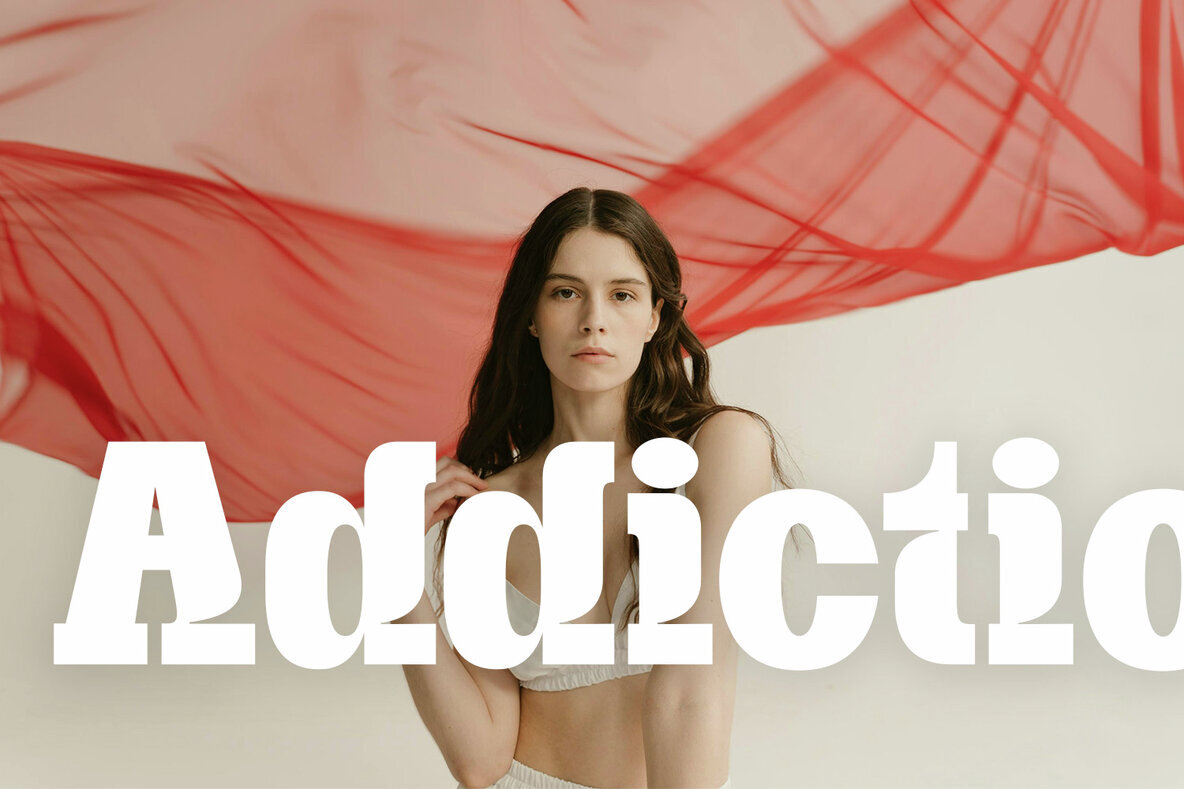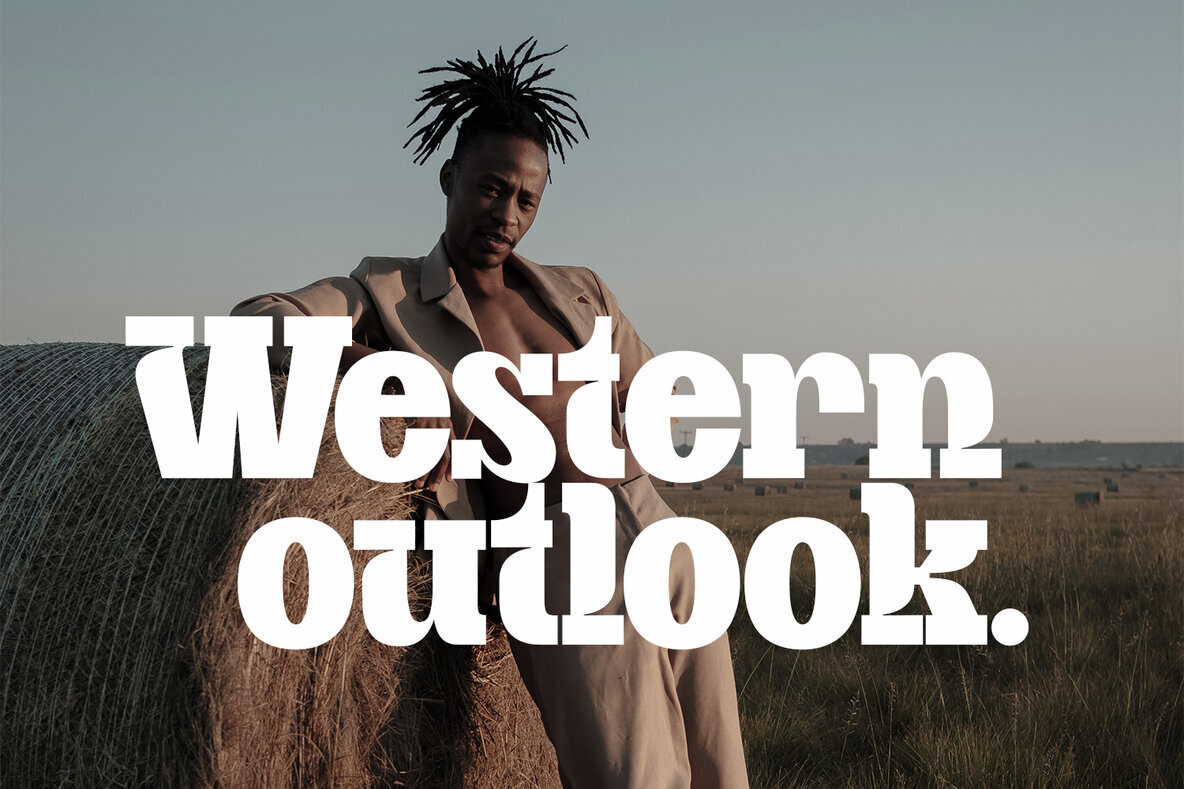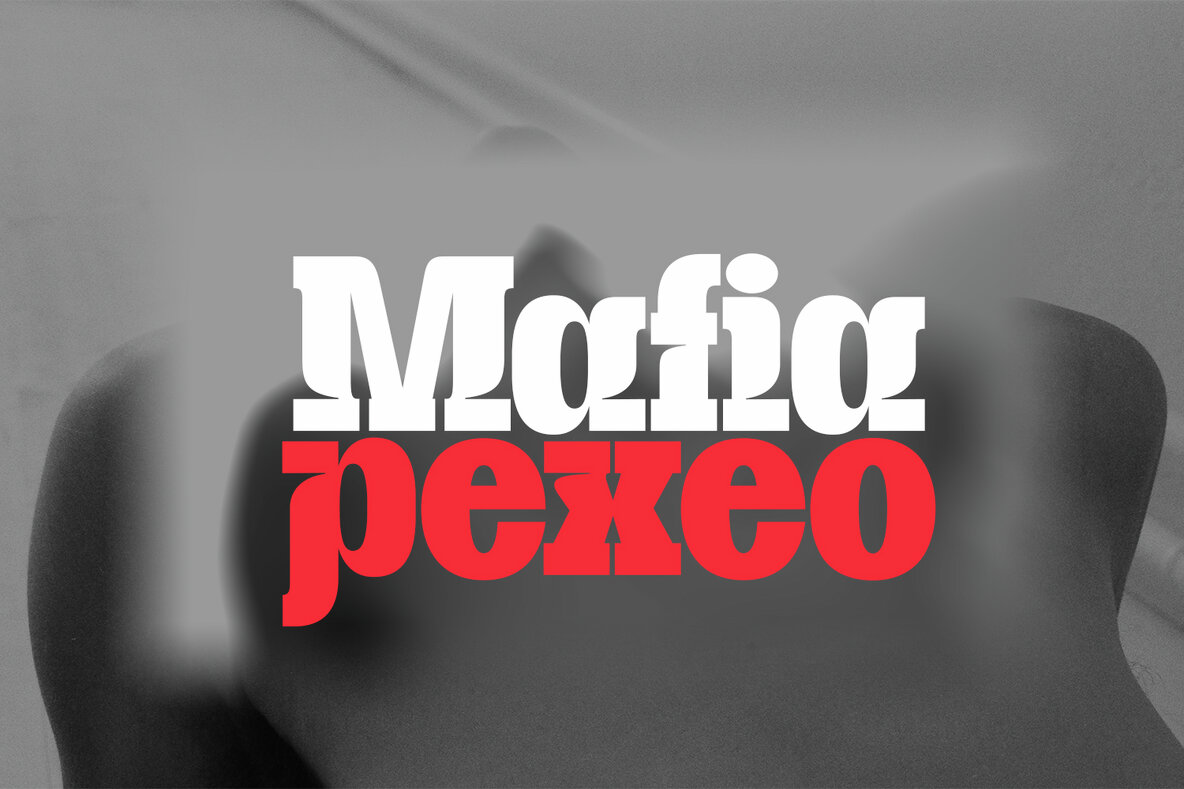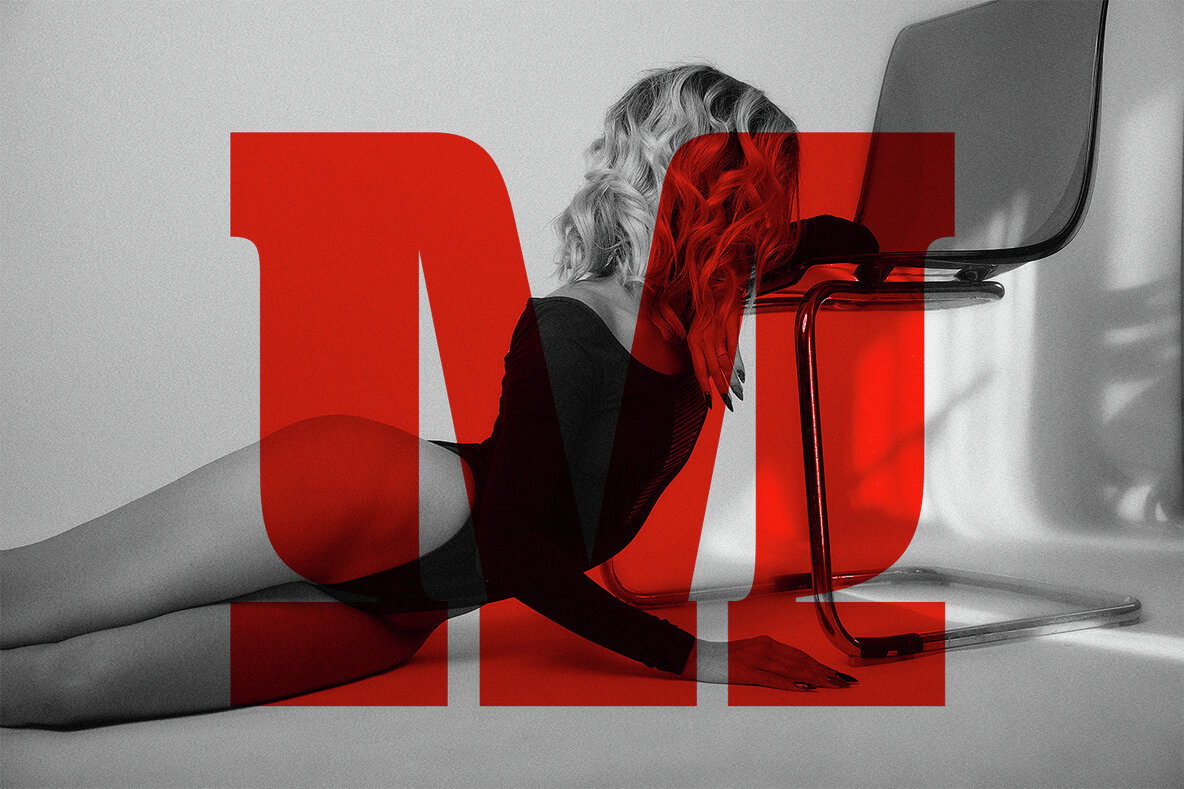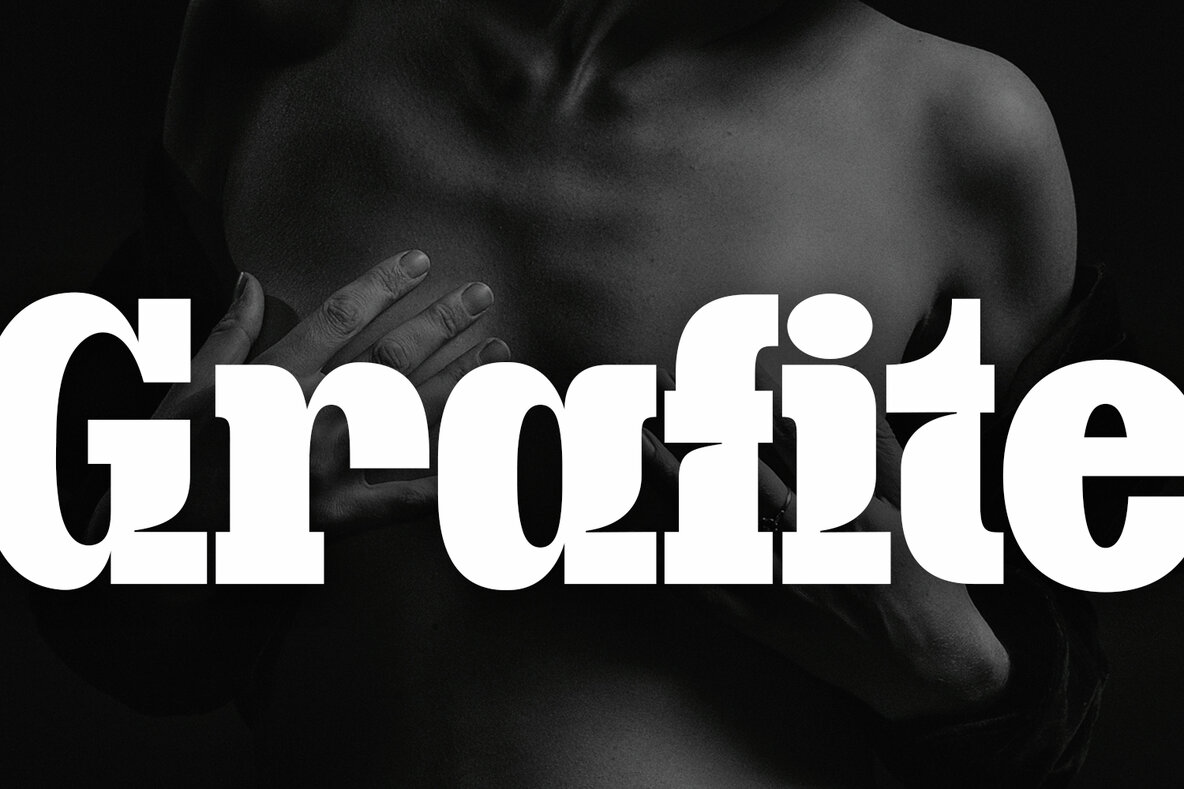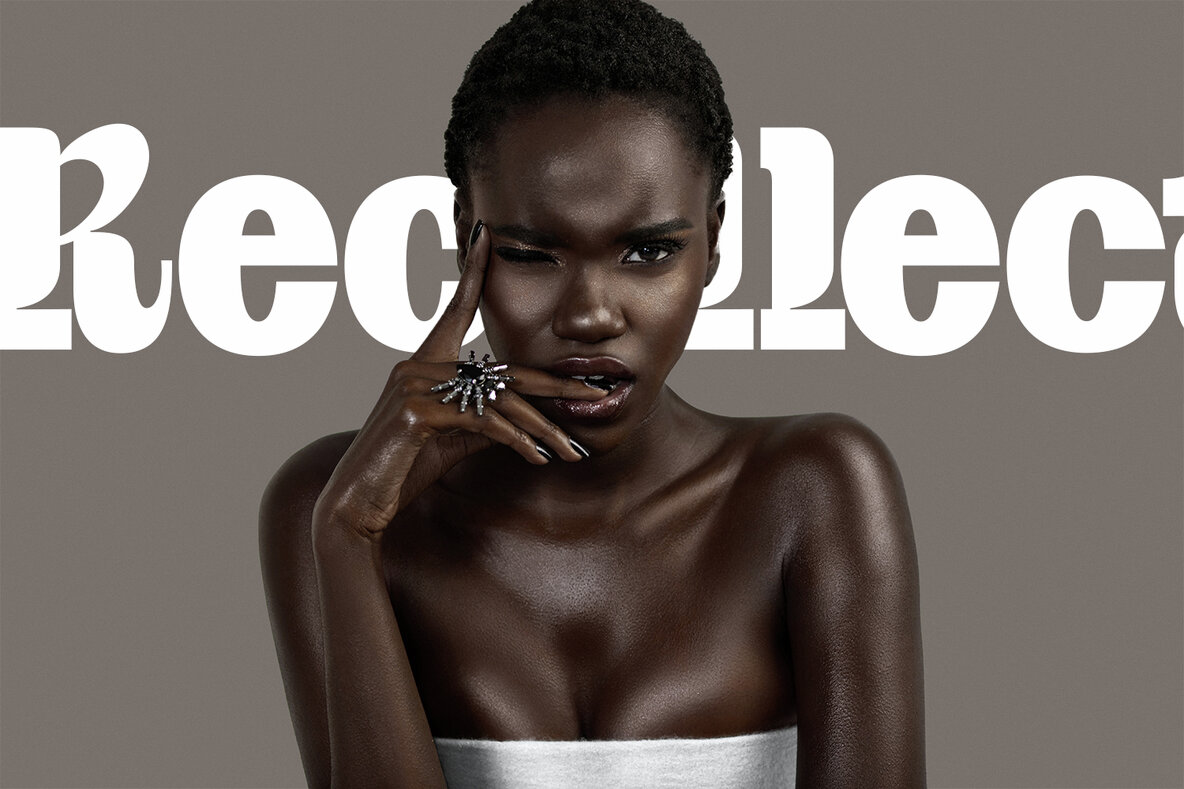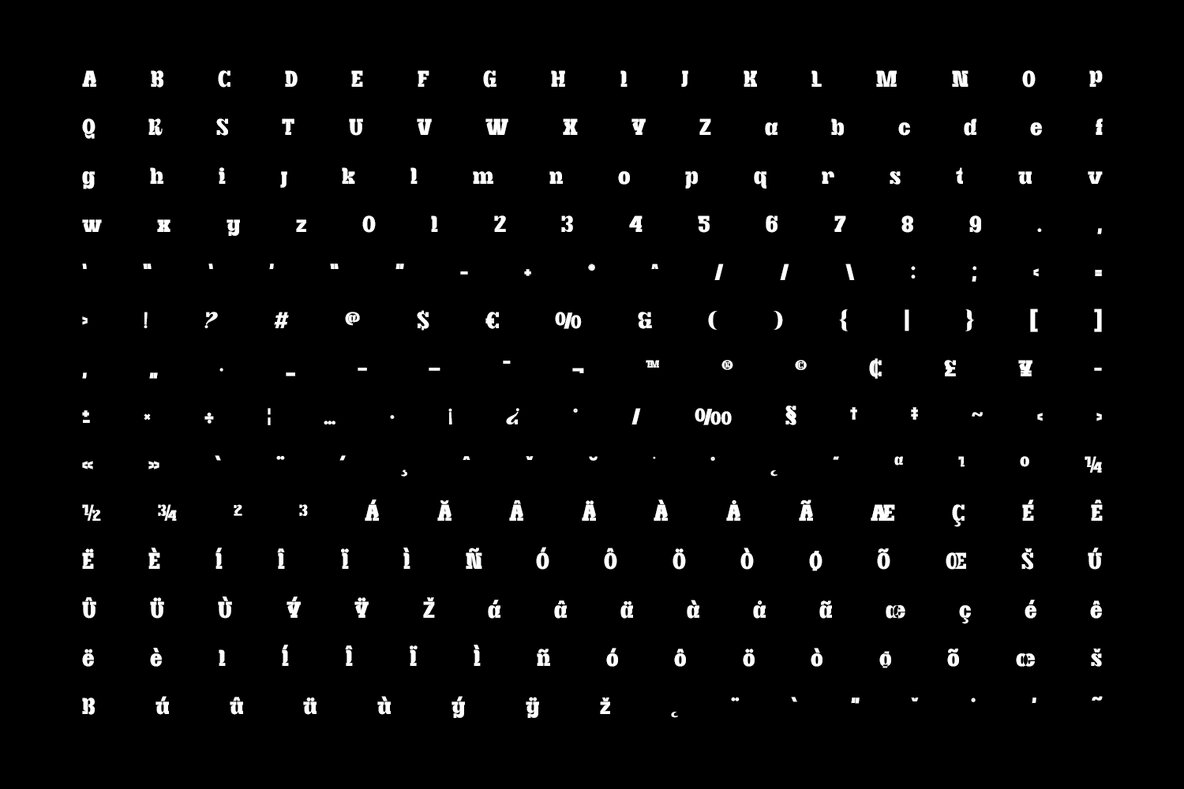
Macduff Typeface Font
Macduff Typeface
Macduff Display is a meticulously crafted typeface designed to make a bold statement in any creative project. Perfect for posters, magazine covers, headlines, logos, and branding, this font brings a modern and dynamic touch to your design work. Each character is crafted with precision to ensure clarity and visual appeal, making your text stand out with elegance and impact.
Whether you're creating eye-catching posters or attention-grabbing headlines, Macduff Display offers versatile usage that adapts to a variety of design needs. Transform your branding projects with its distinctive style, seamlessly combining sophistication and boldness. Embrace the unique look of Macduff Display to elevate the visual impact of your creative endeavors.